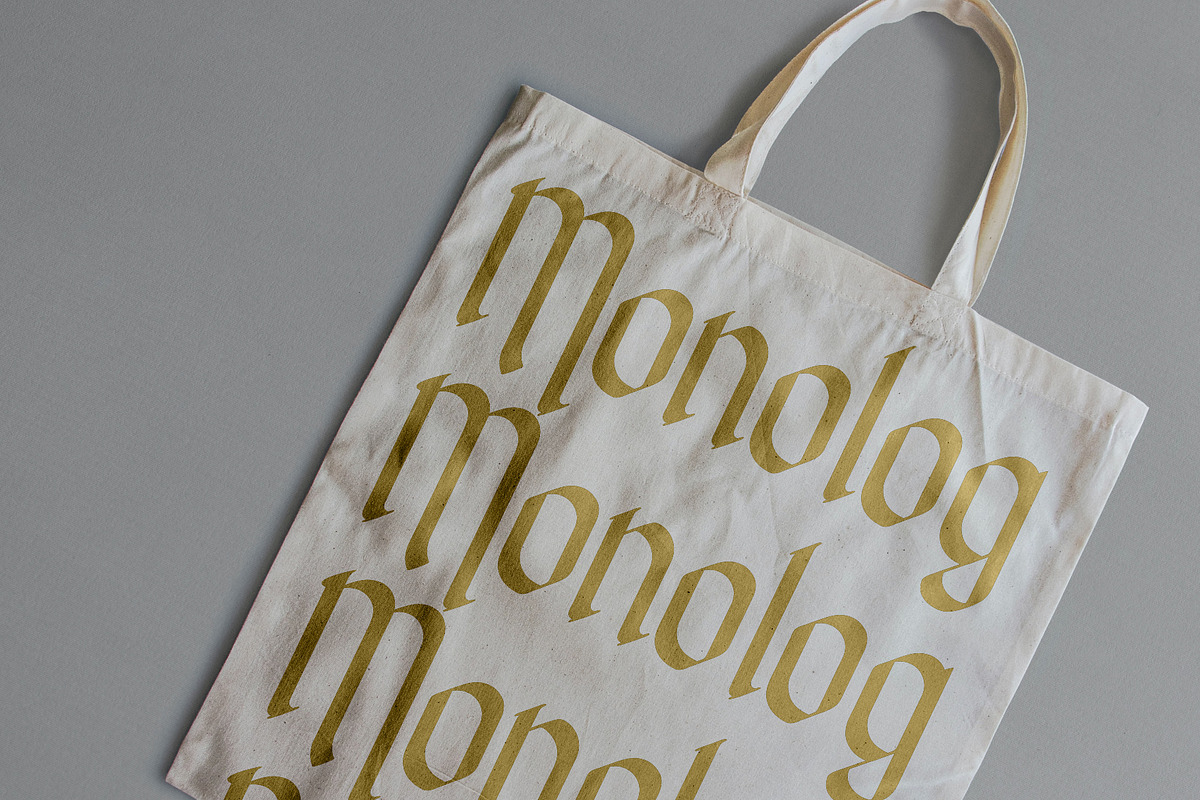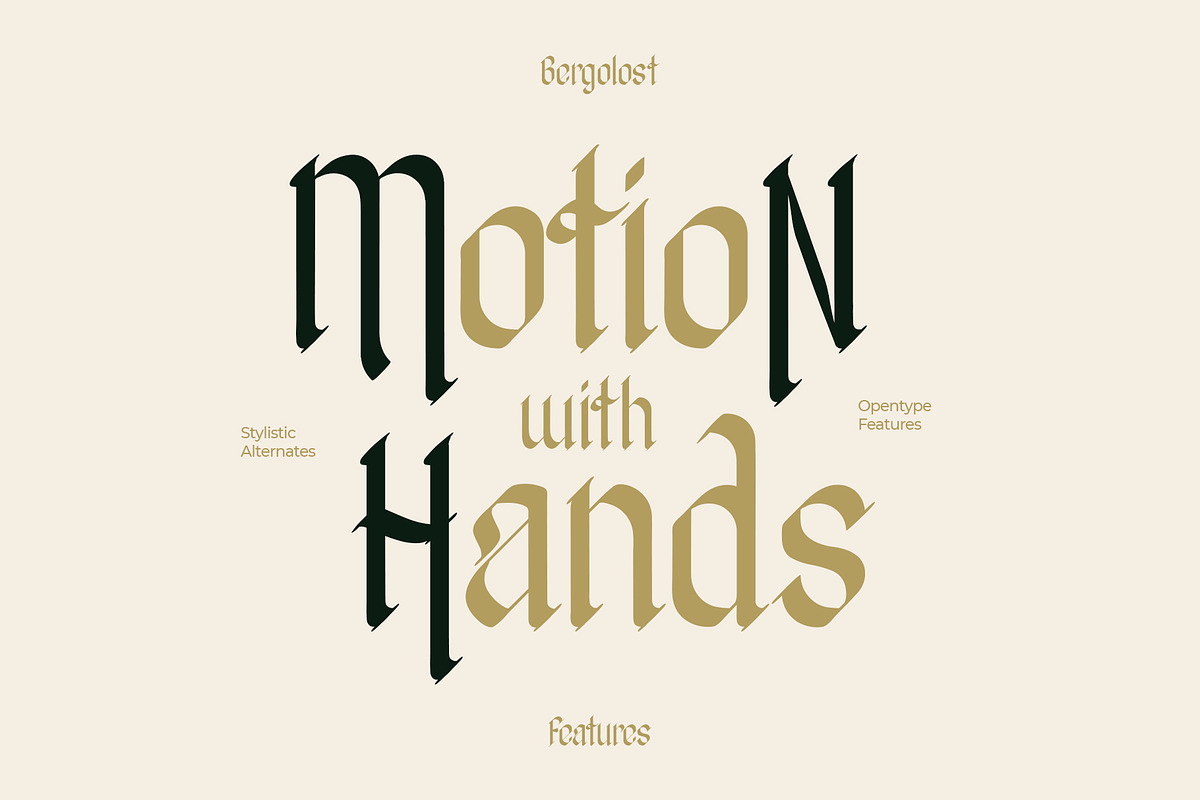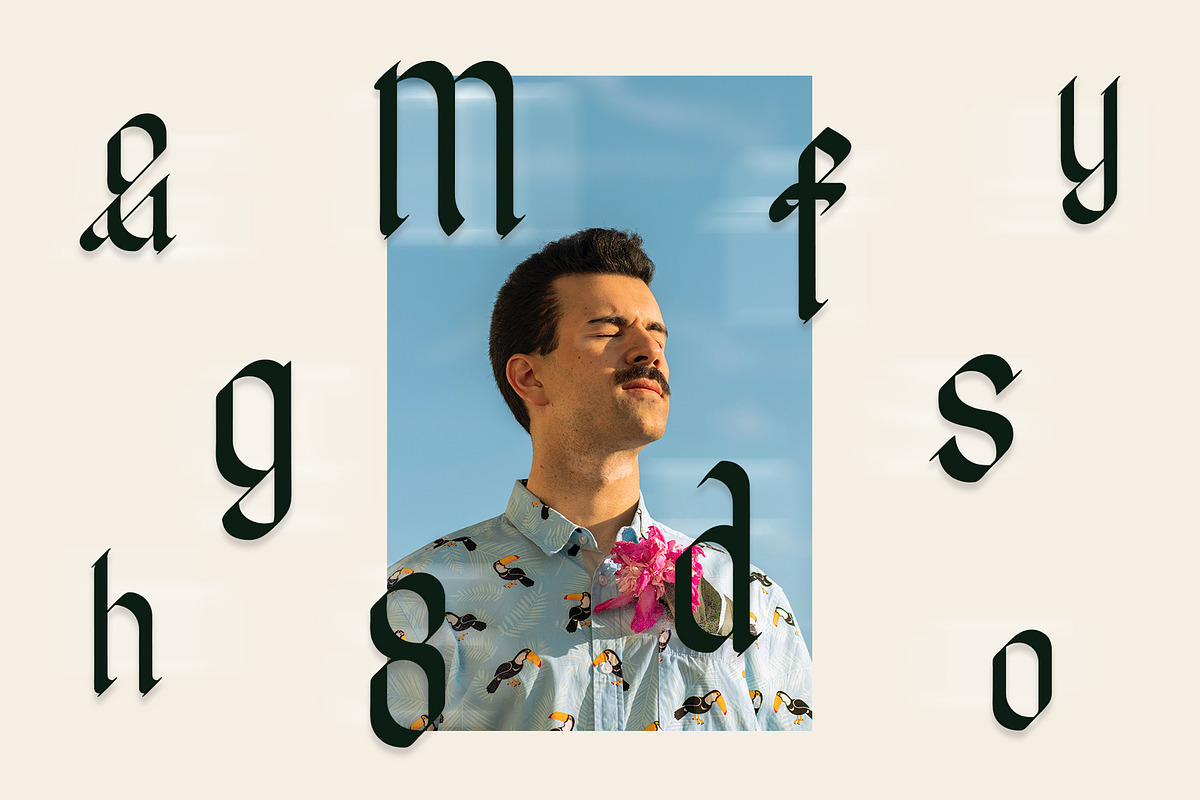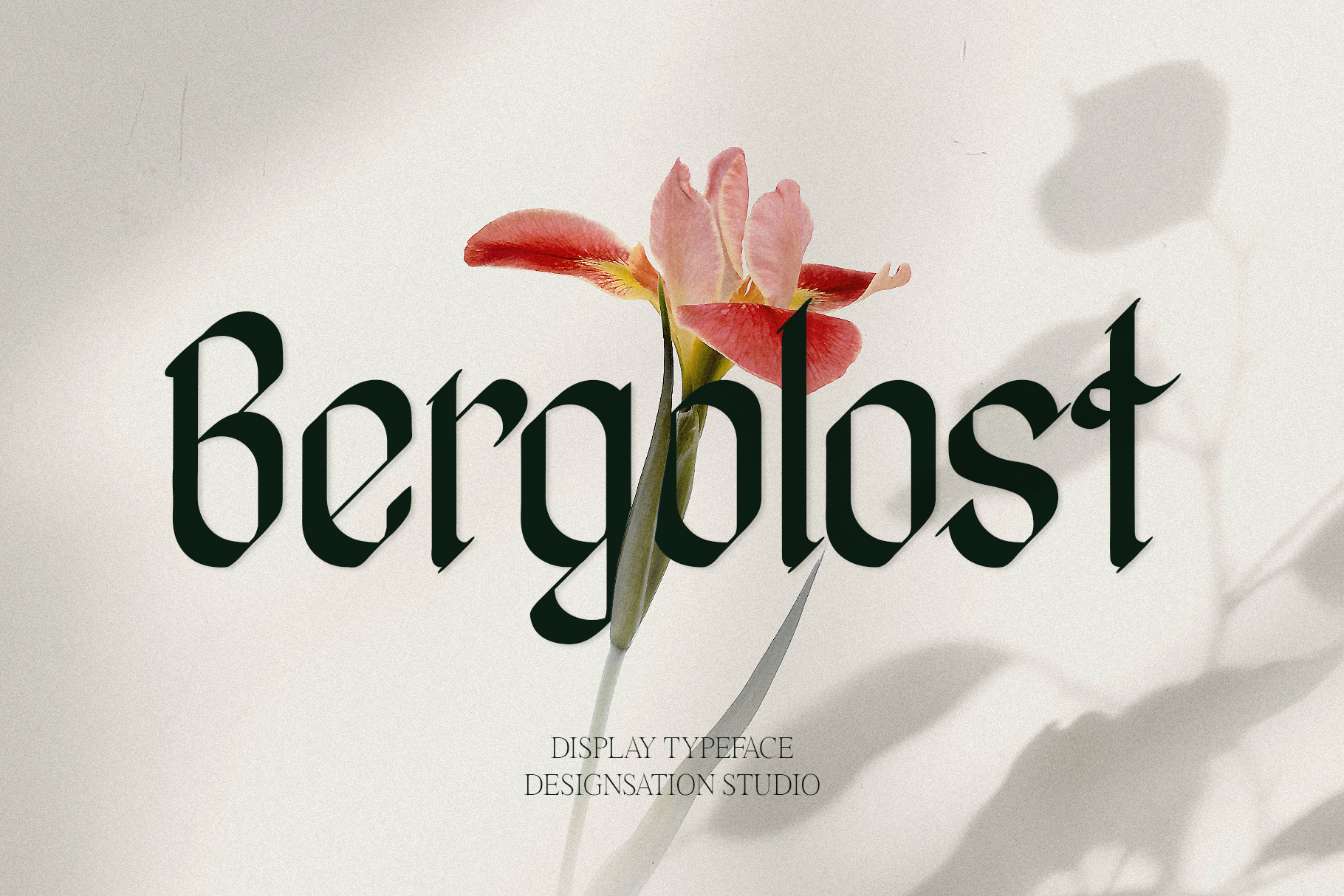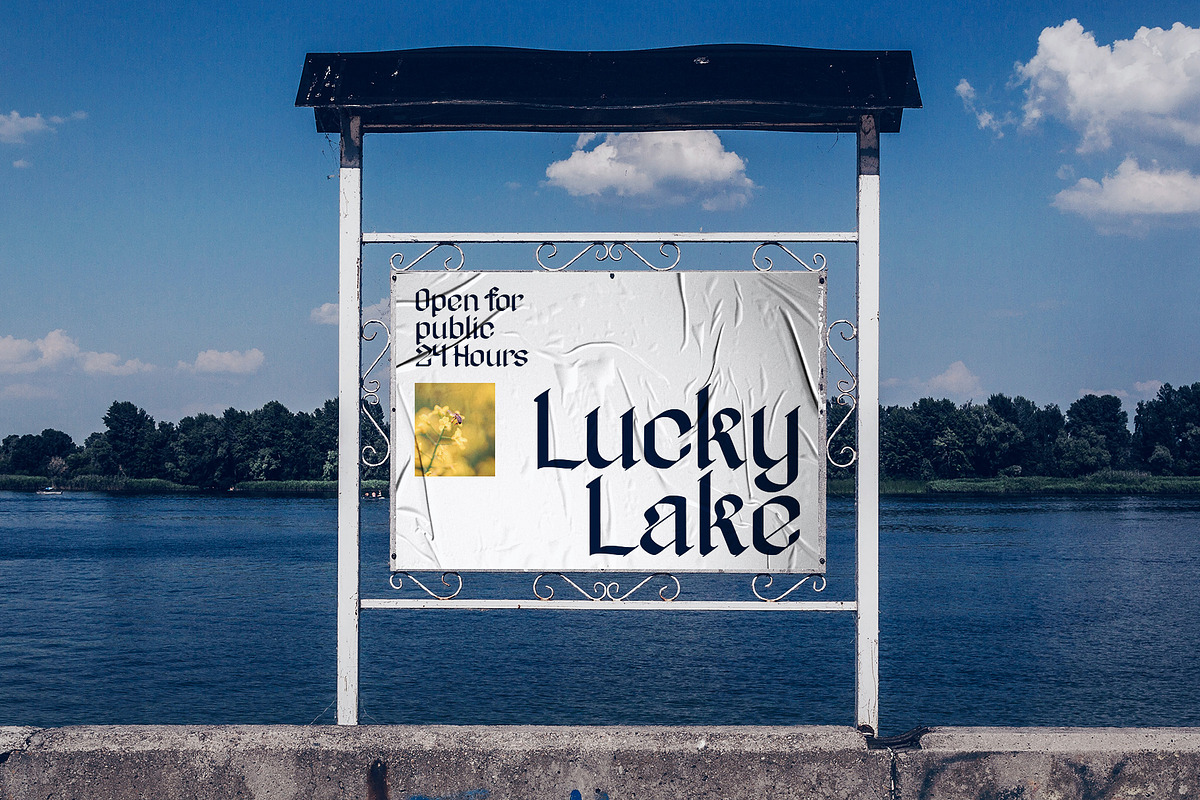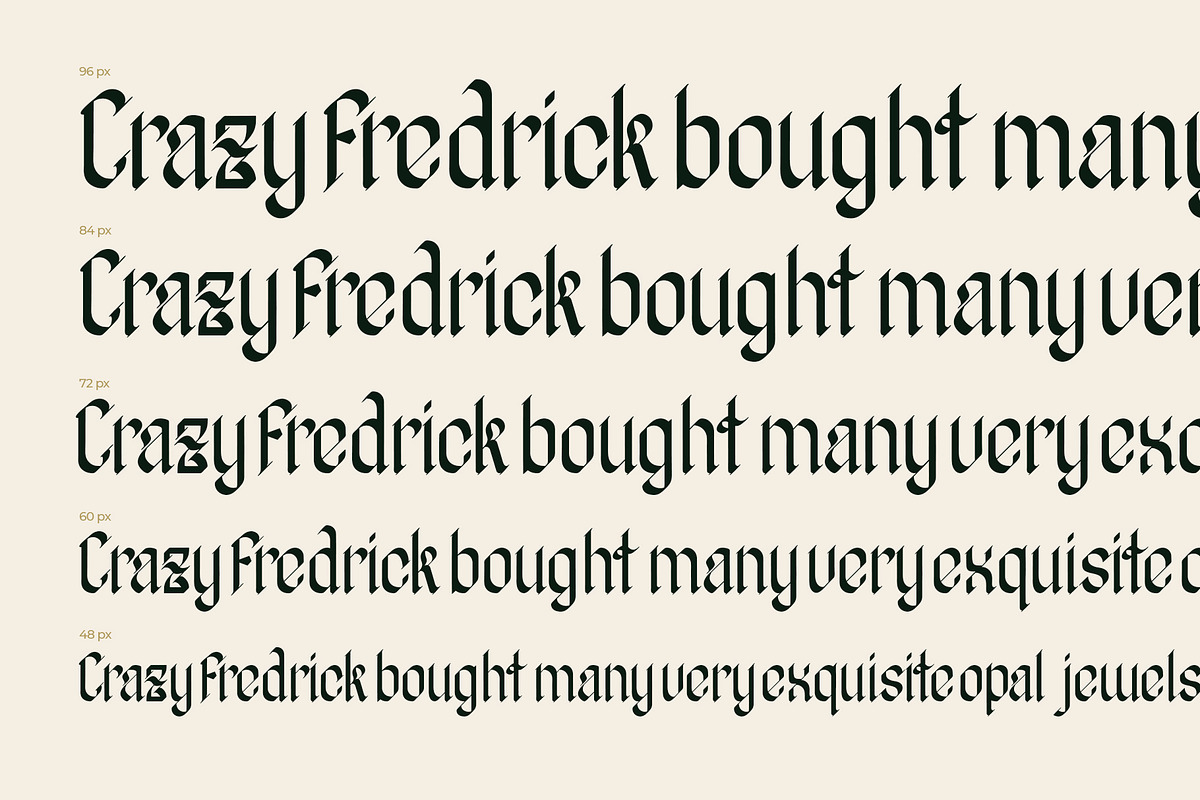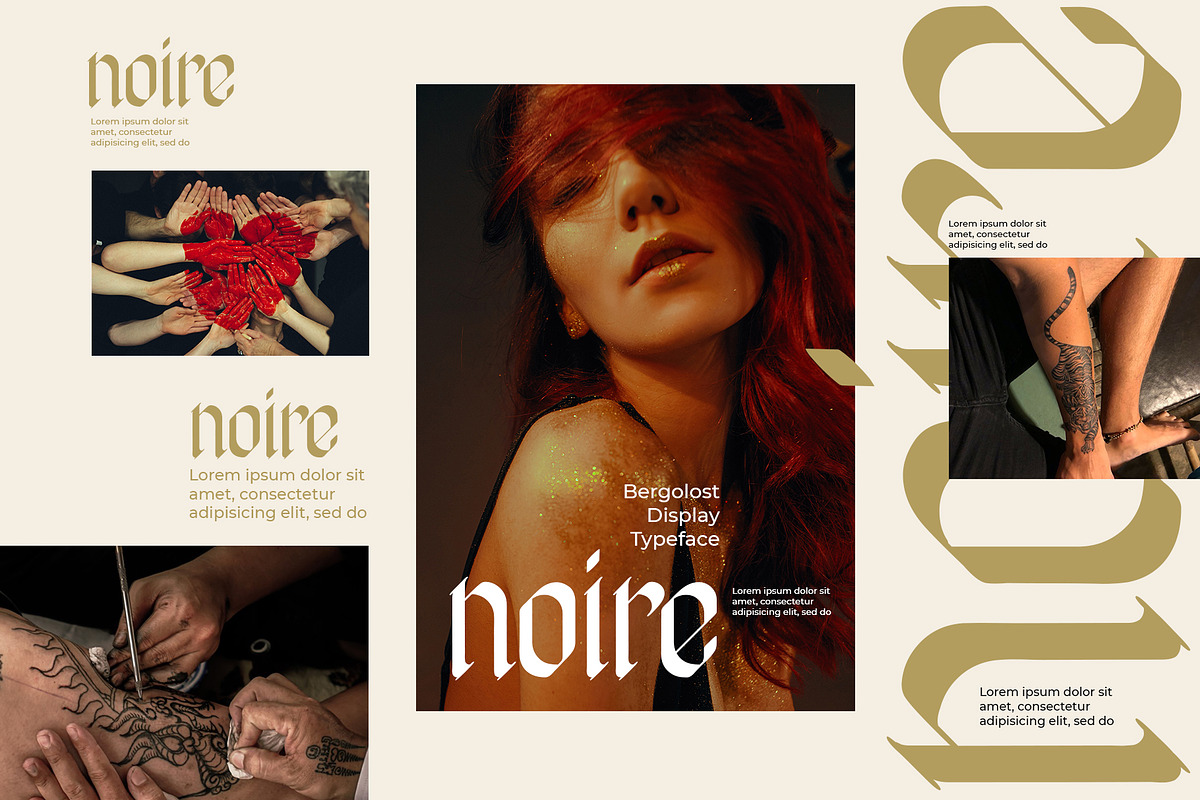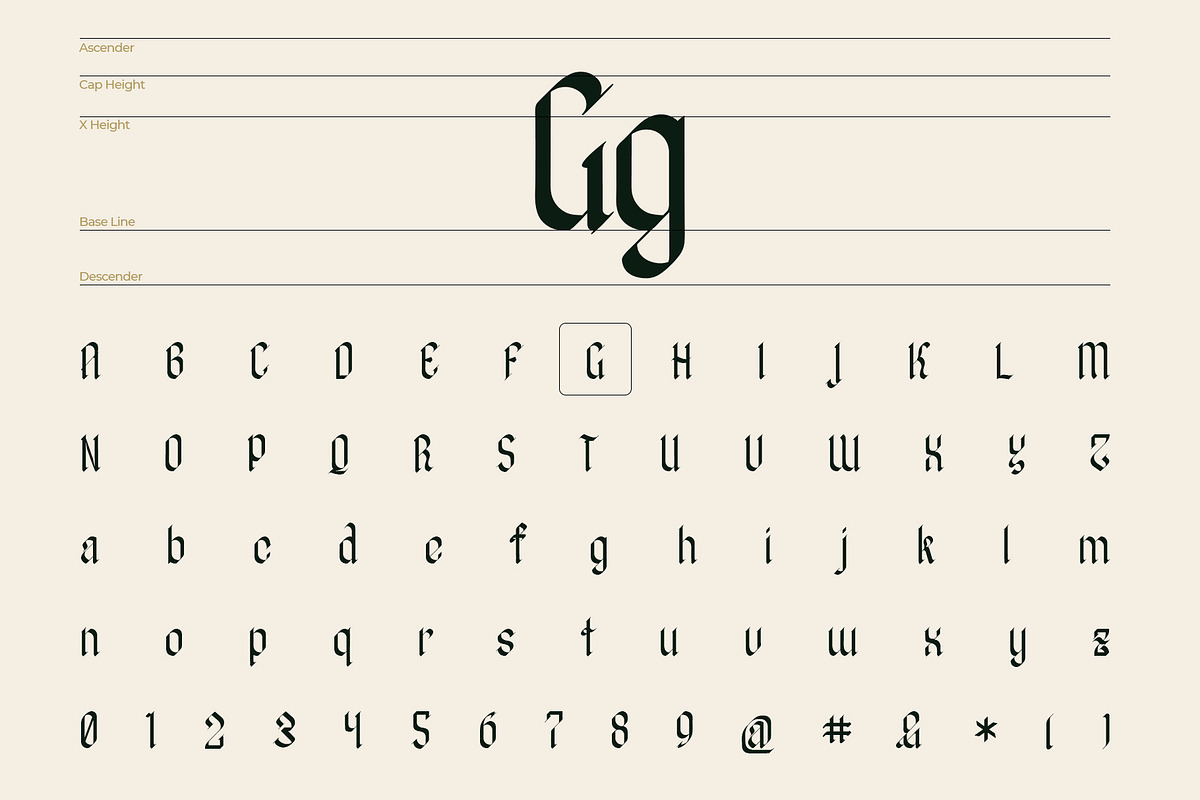
Bergolost Display Typeface
Bergolost is a simplified look of the Black Letters font and is headed in a more clean and modern direction. 45-degree slanted serifs characterize a black letter typeface, but still emphasize the typeface in general.
Equipped with OpenType features and support for multi Latin languages complements the beauty of this font.